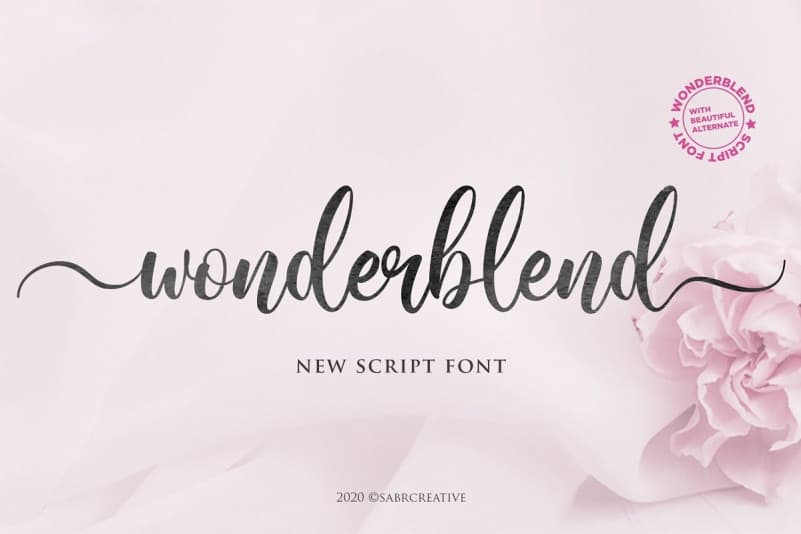
Wonderblend Calligraphy Font
Say hello to Wonderblend, a modern calligraphy font! Wonderblend is a bounce calligraphy font.
This font is perfect for fashion brand, wedding invitation, business card, logo brand, signature, and also for calligraphy purpose.